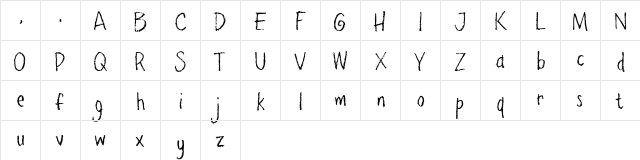
pencilPete FONT Regular
Design Context for pencilPete FONT Typeface
pencilPete FONT is a composed and adaptable typeface that performs quietly and consistently across a wide range of design contexts.